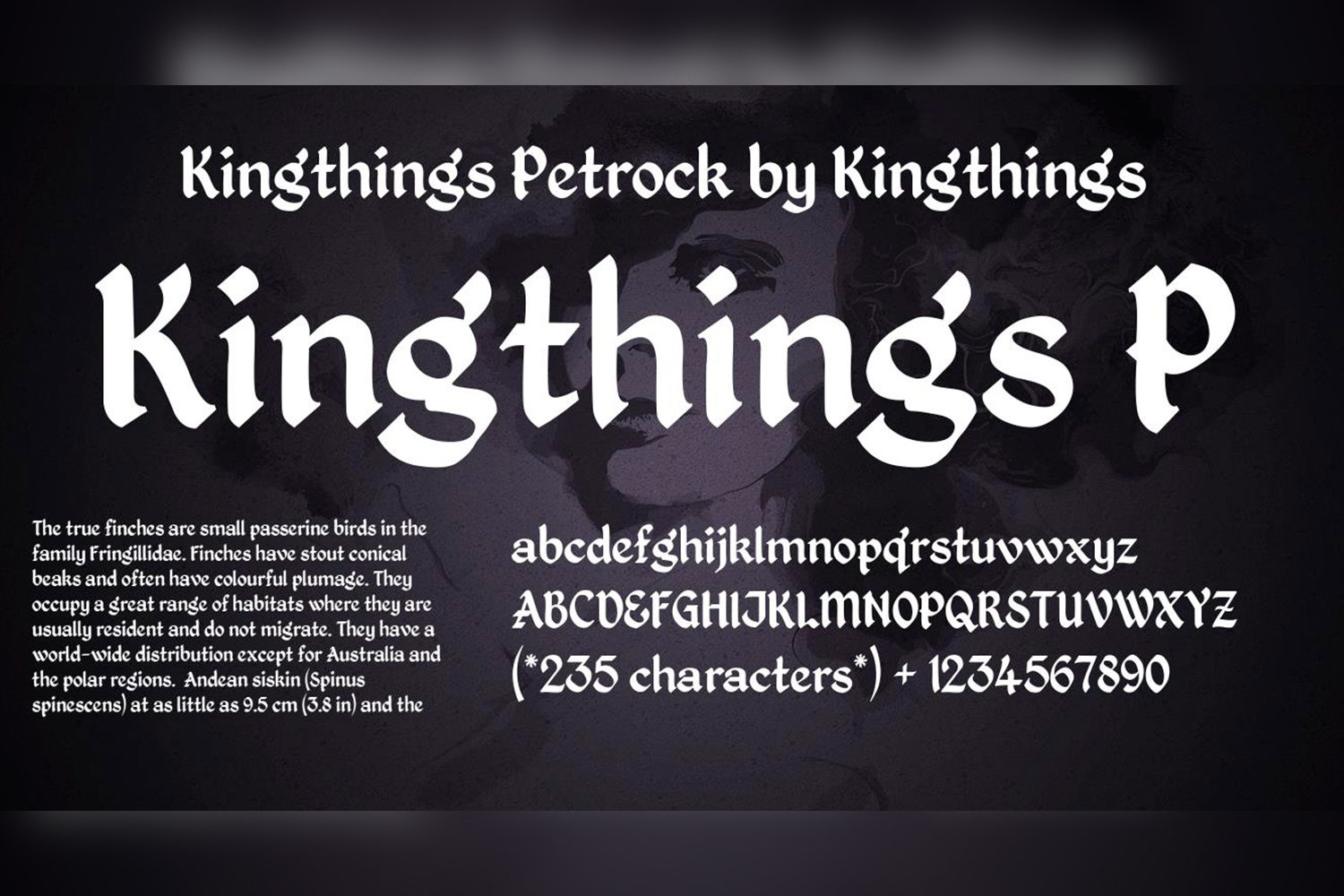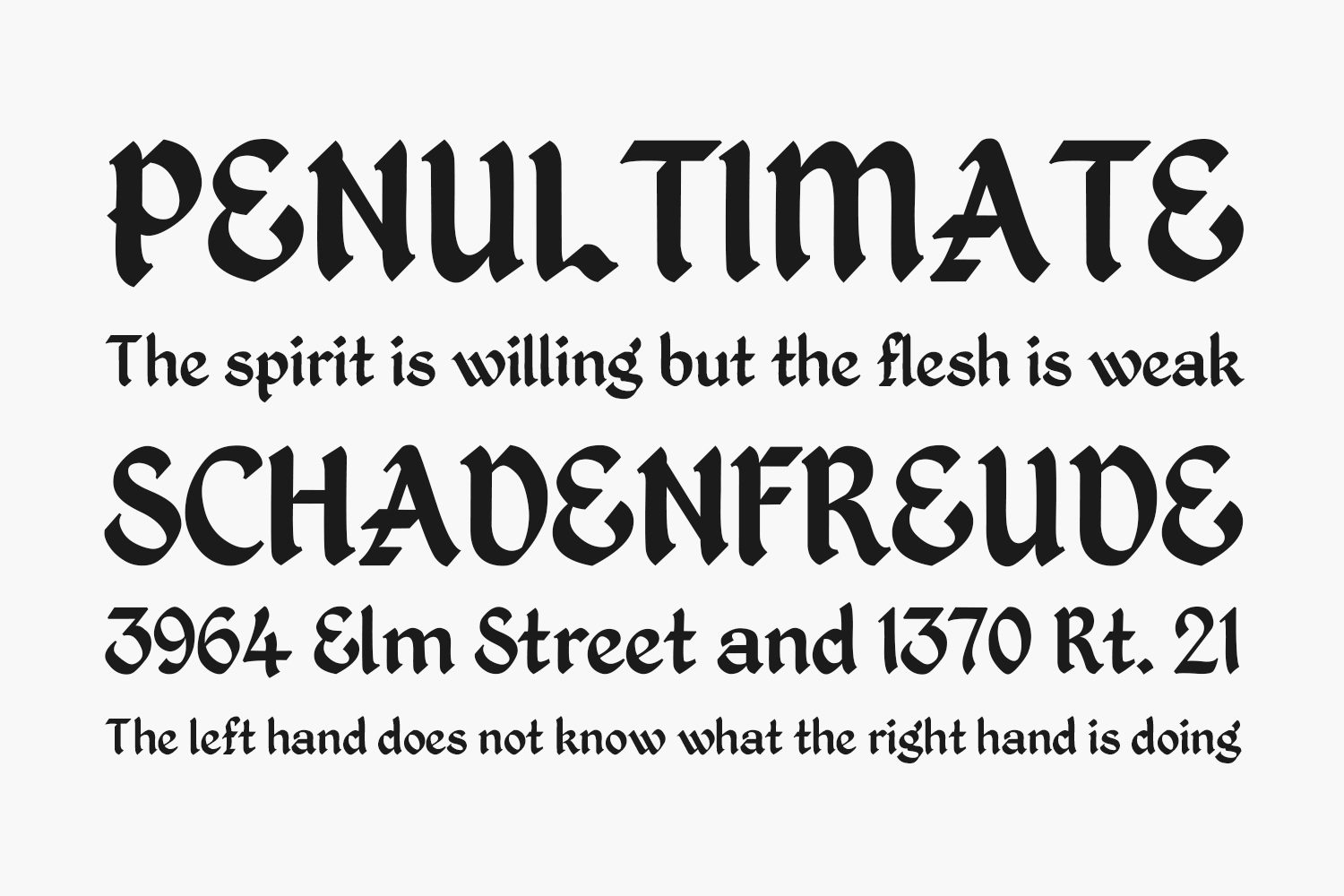
Kingthings Petrock is based on a labelling face and it has had some modification to make it suitable as a Windows font but retains most of the flavour of the original.
Designed by Kingthings